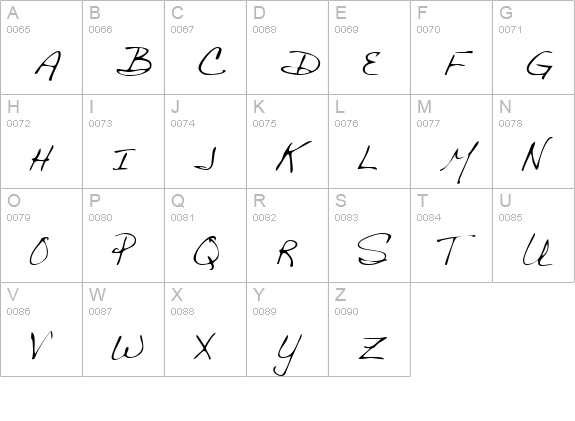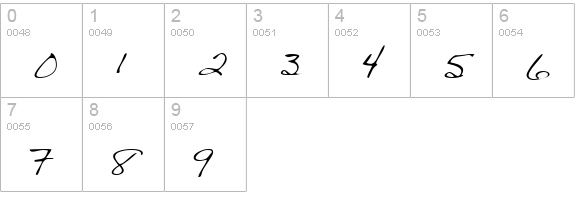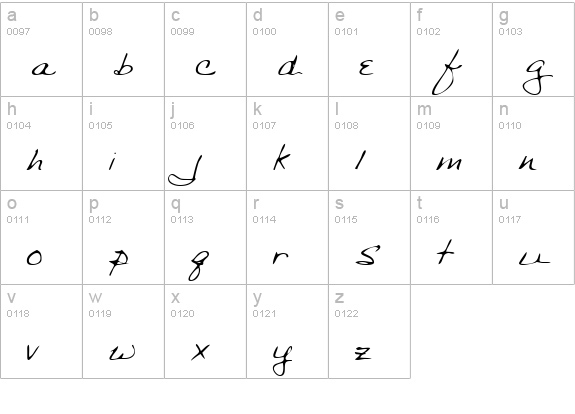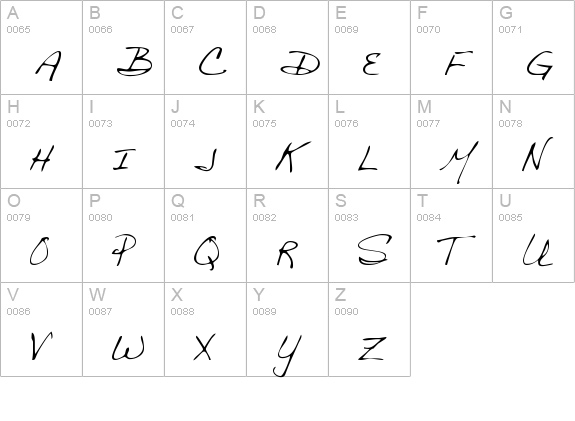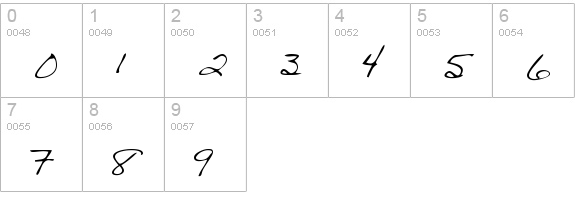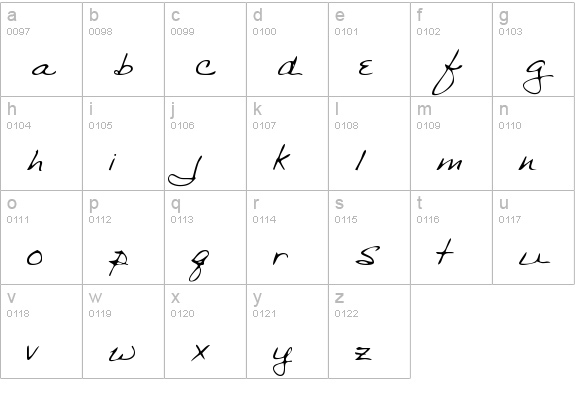
BethanysHand Regular is the standard, neutral variant in the BethanysHand typeface family \xE2\x80\x94 well suited to general body text, paragraphs, and standard typographic work.
BethanysHand Regular font is a charming and playful typeface that adds a touch of whimsy to any design project. Its handwritten style gives a personal and welcoming feel, making it perfect for invitations, greeting cards, and other creative endeavors. The free-spirited nature of this font is sure to bring a smile to anyone who sees it. Best of all, BethanysHand Regular font is freely available to download at FontsMarket.com. So go ahead and add a fun and unique flair to your designs with this delightful typeface today!